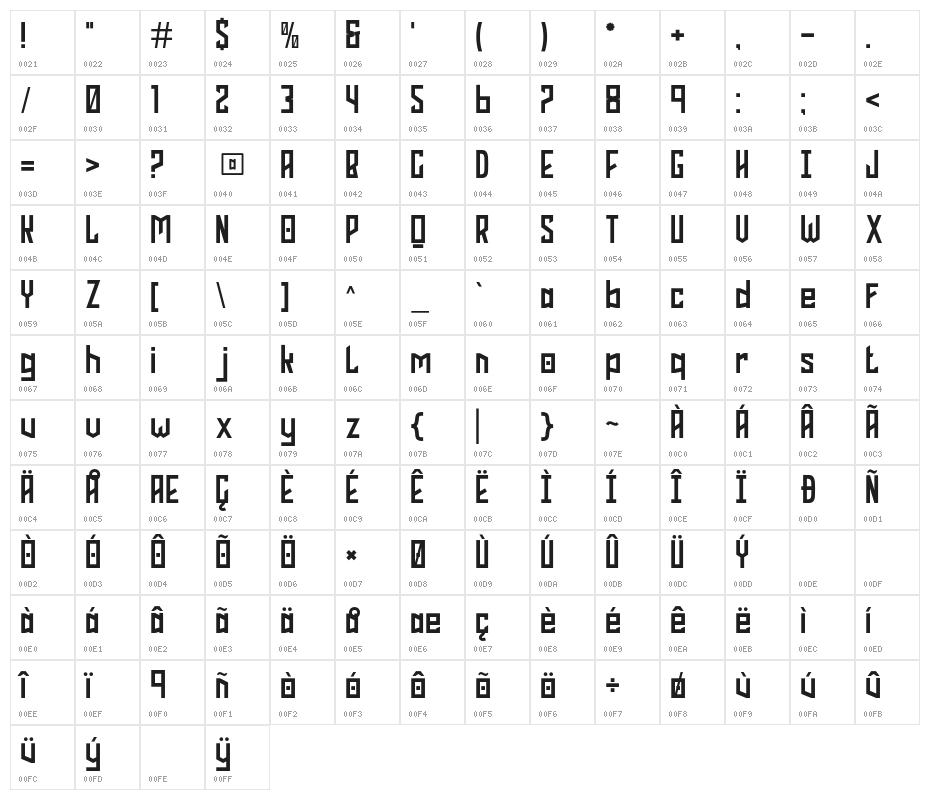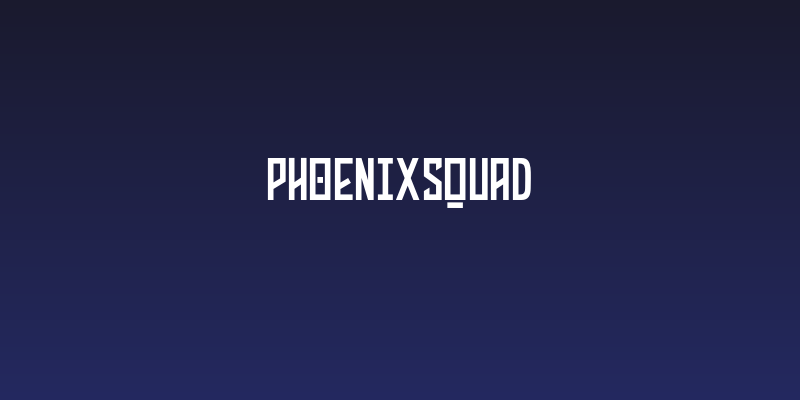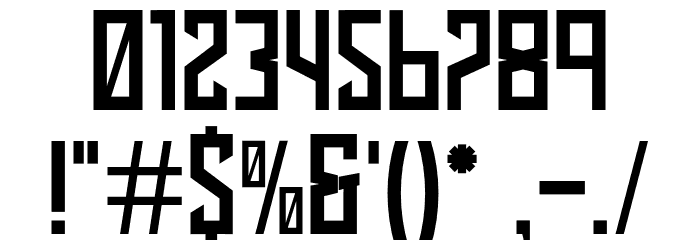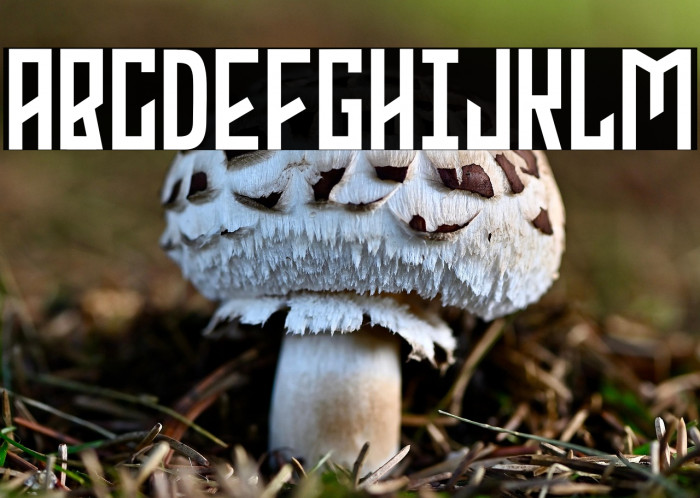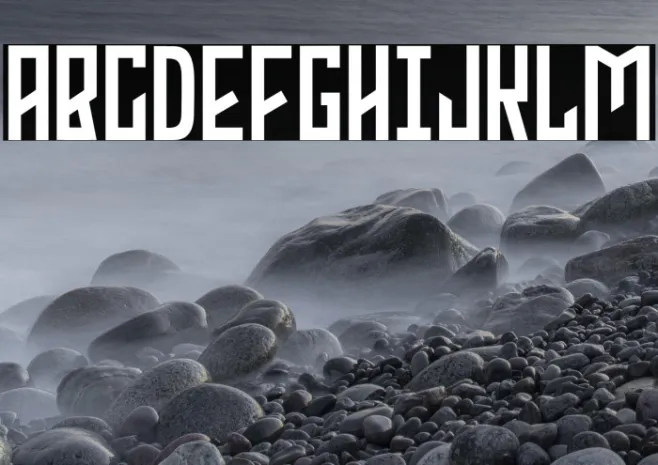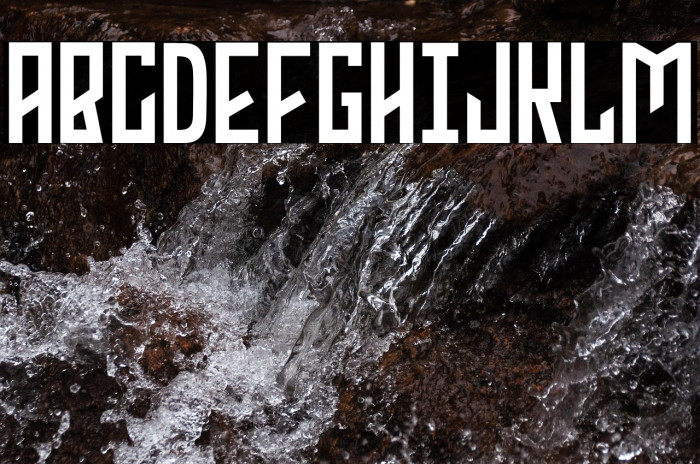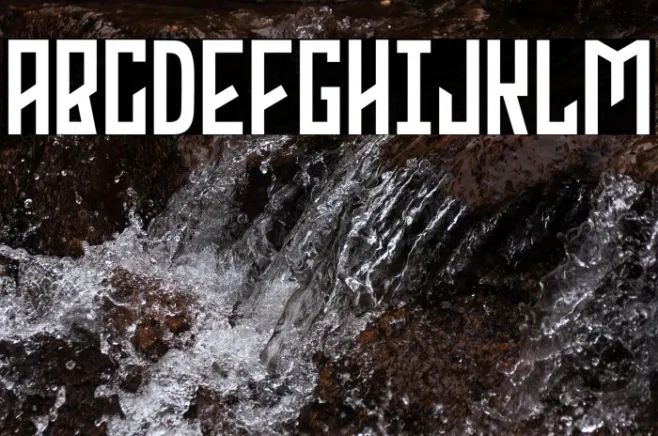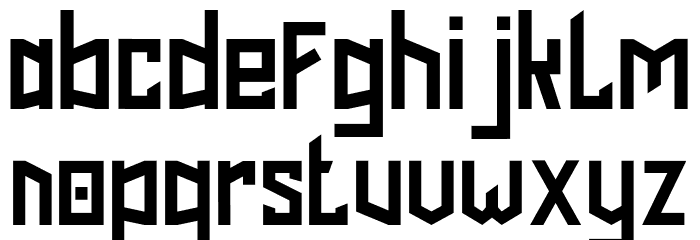
PHOENIXSQUAD Font
PHOENIXSQUAD Description
This font features a bold, geometric design with sharp angles and a modern aesthetic. The uppercase letters are tall and narrow, with consistent stroke widths that give a uniform appearance. The lowercase letters maintain the same angular style, creating a cohesive look across both cases. Numbers are similarly styled, ensuring readability while maintaining the font's unique character. Special characters are designed to match the overall geometric theme, making them suitable for various design applications. The font's strong visual impact makes it ideal for attention-grabbing headlines and logos.
| Proposed Projects | Ideal for branding, posters, headlines, and modern graphic design projects. |